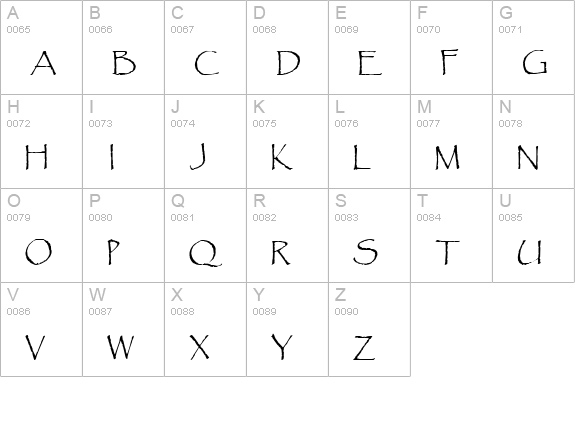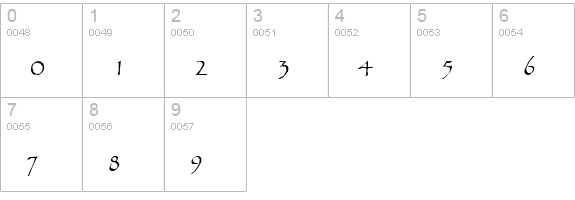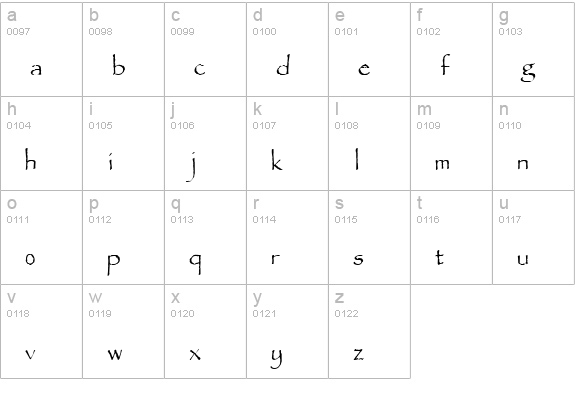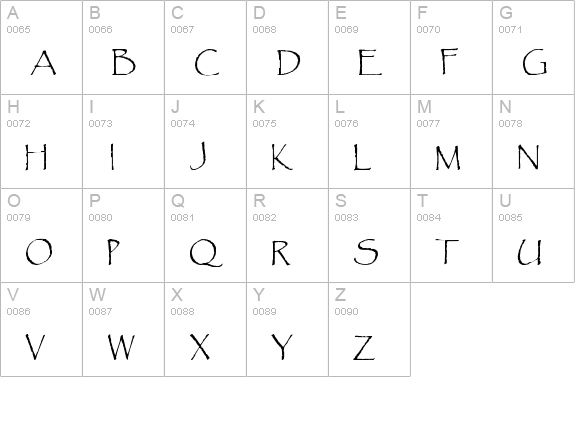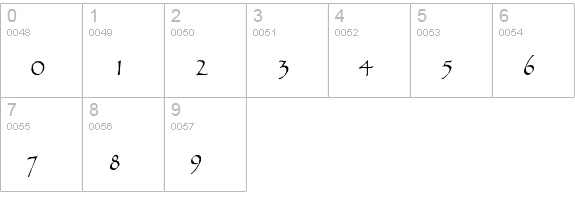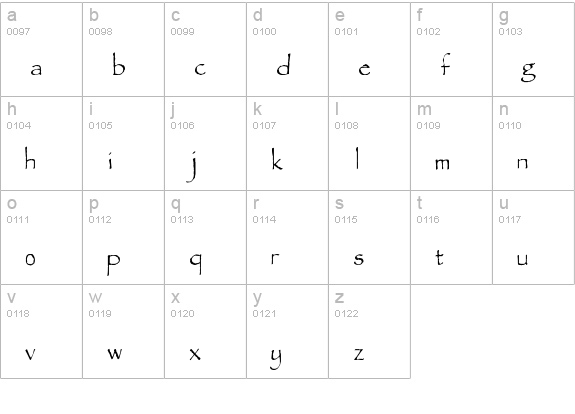
QTPandora Regular Font Details
QTPandora Regular is the standard, neutral variant in the QTPandora typeface family \xE2\x80\x94 well suited to general body text, paragraphs, and standard typographic work.
Introducing QTPandora Regular, a versatile and stylish font that will elevate your designs to new heights. With its clean lines and balanced proportions, this font is perfect for a variety of projects, from logos and branding to websites and social media graphics. But what sets QTPandora Regular apart is its accessibility - it's completely free! That's right, you can download this incredible font at no cost from FontsMarket.com. Whether you're a professional designer or a hobbyist, this font is available to everyone, allowing you to bring your creative visions to life without breaking the bank. With its wide range of characters and glyphs, QTPandora Regular offers endless possibilities for customization and personalization. Whether you prefer a bold and eye-catching look or a more subtle and elegant style, this font has got you covered. Don't miss out on this amazing opportunity to enhance your designs with QTPandora Regular. Download it for free today at FontsMarket.com and start creating stunning visuals that will captivate your audience.